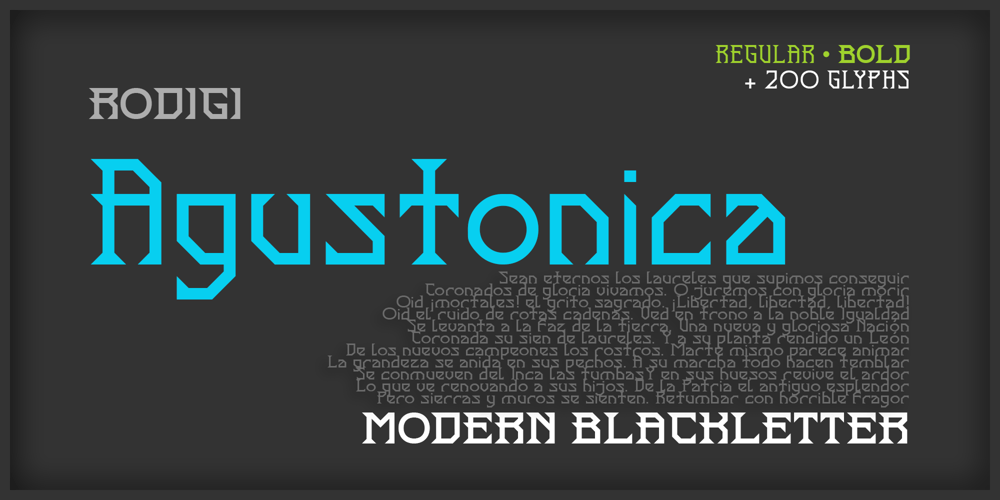
Agustonica Font Family was designed by Roberto Di Giuseppe and published by Rodigi. Agustonica contains 2 styles and family package options. Agustonica is a geometric modern blackletter serif display font. An experimental mix between angled and straight lines makes this a unique typographic design. Easily access case-sensitive styles. Perfect use includes logo, poster, display, headline, t-shirt design and many more.